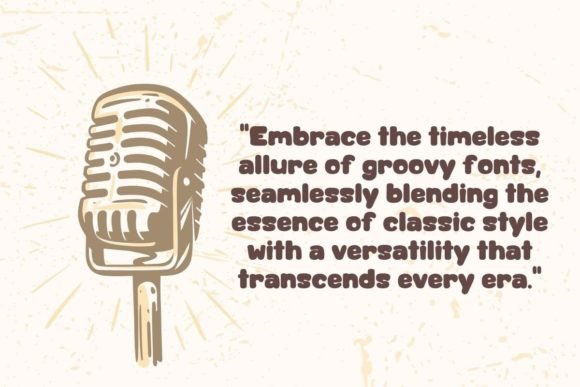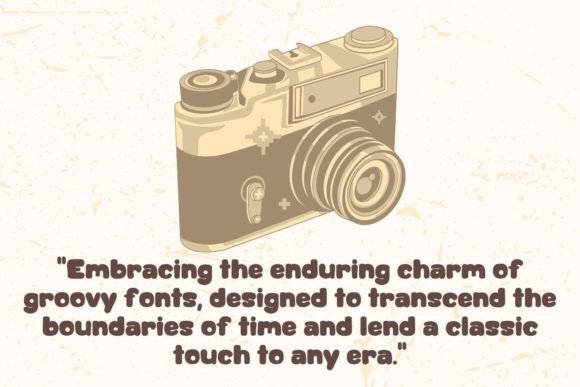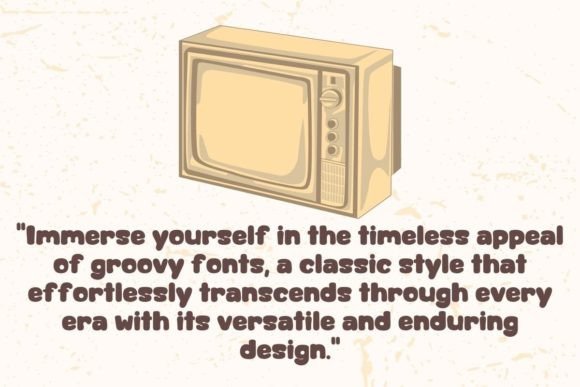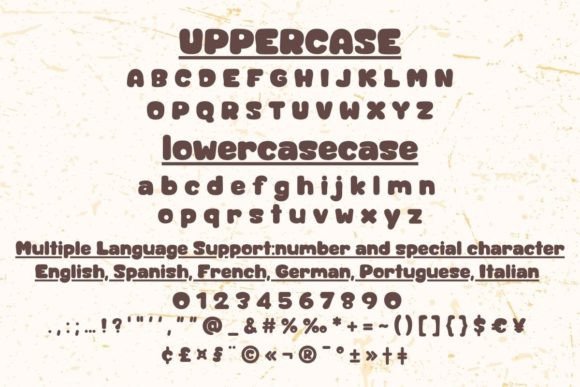
Embrace Nostalgia with Groovy Magic: The Ultimate Retro Font for Designers
Are you a designer or crafter looking to add a touch of nostalgia to your projects? Do you want to transport yourself and your audience to a bygone era? Look no further than Groovy Magic, the enchanting retro font that’s sure to captivate your imagination. In this article, we’ll explore the unique features of Groovy Magic and how it can elevate your designs to the next level.
The Power of Retro Typography
Retro typography has seen a significant resurgence in popularity over the years, and it’s easy to see why. Fonts from the past evoke a sense of nostalgia and whimsy, transporting us to a simpler time. Groovy Magic is no exception, with its beautiful, curved lines and stylish strokes that scream vintage charm.
What Makes Groovy Magic Special?
Groovy Magic is more than just a font – it’s an experience. Its unique blend of classic and playful elements makes it perfect for a wide range of design projects, from posters and flyers to digital graphics and crafts. Here are just a few reasons why Groovy Magic stands out:
- Whimsical curves: Groovy Magic features elegant, curved lines that add a touch of sophistication to any design.
- Stylish strokes: The font’s stylish strokes bring a sense of movement and energy to your projects.
- Vintage flair: Groovy Magic’s retro aesthetic is perfect for designers looking to add a nostalgic touch to their work.
- Versatility: Whether you’re working on a digital project or a craft, Groovy Magic is the perfect choice.
How to Use Groovy Magic in Your Designs
Groovy Magic is incredibly easy to use, even for those who are new to design. Here are a few tips to get you started:
- Pair it with modern fonts: Combine Groovy Magic with modern fonts for a striking contrast that adds visual interest.
- Experiment with colors: Try out different colors and textures to give your designs a unique look.
- Play with sizes: Use Groovy Magic in a variety of sizes to create visual hierarchy and emphasis.
Groovy Magic in the World of Crafting
Crafters, rejoice! Groovy Magic is not just limited to digital design. You can use this beautiful font to add a personal touch to your handmade projects, such as:
- Hand-lettering: Use Groovy Magic as inspiration for your hand-lettering projects.
- Journaling: Add a touch of nostalgia to your journal pages with Groovy Magic.
- Card making: Create beautiful, one-of-a-kind cards with Groovy Magic.
Groovy Magic is more than just a font – it’s a gateway to a bygone era. With its whimsical curves, stylish strokes, and vintage flair, this enchanting retro typeface is sure to captivate designers and crafters alike. Whether you’re looking to add a touch of nostalgia to your digital designs or handmade projects, Groovy Magic is the perfect choice. So why wait? Embrace the magic of Groovy Magic and transport yourself to a world of retro charm and whimsy.